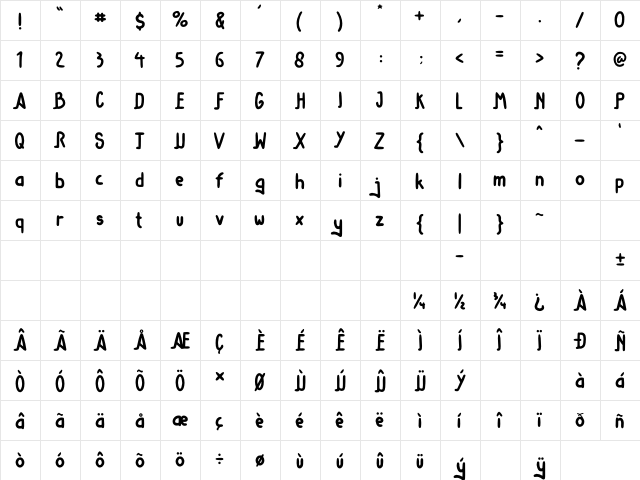
Better time Regular
| Designer | Hindro cholis |
Design Context for Better time Typeface
Better time is a composed and adaptable typeface that performs quietly and consistently across a wide range of design contexts.